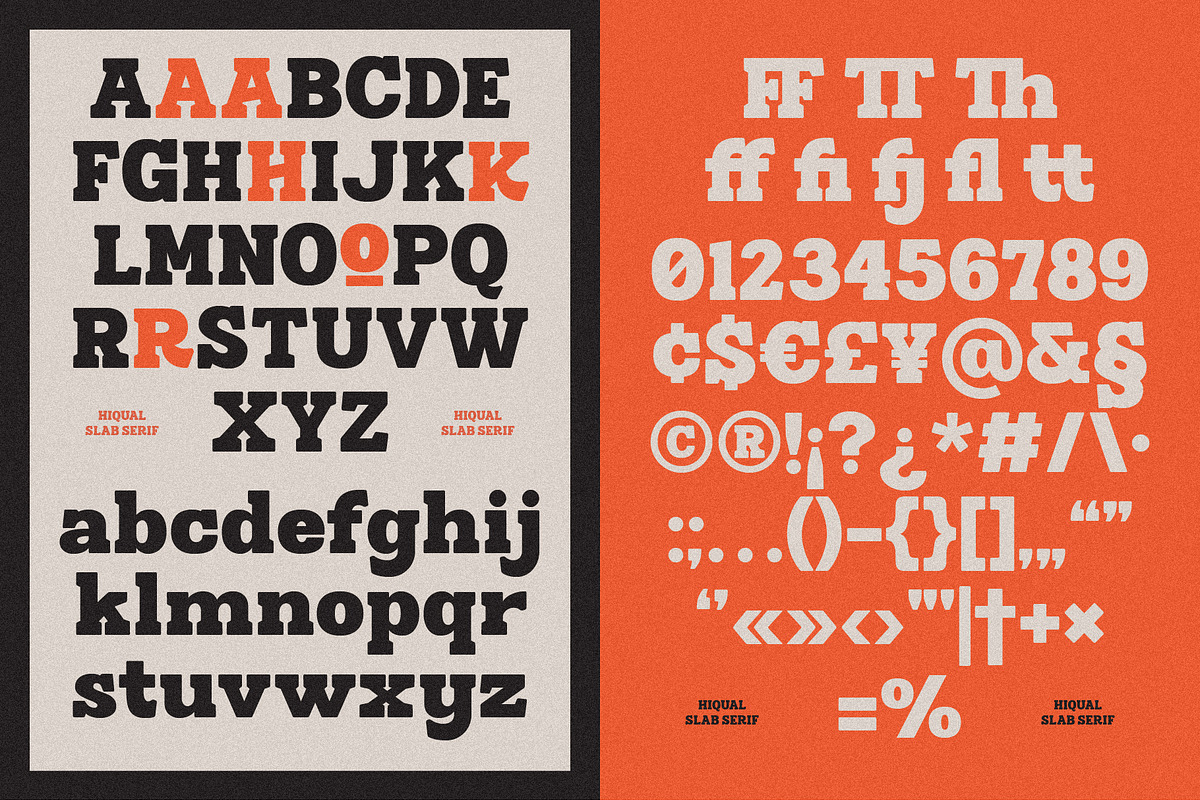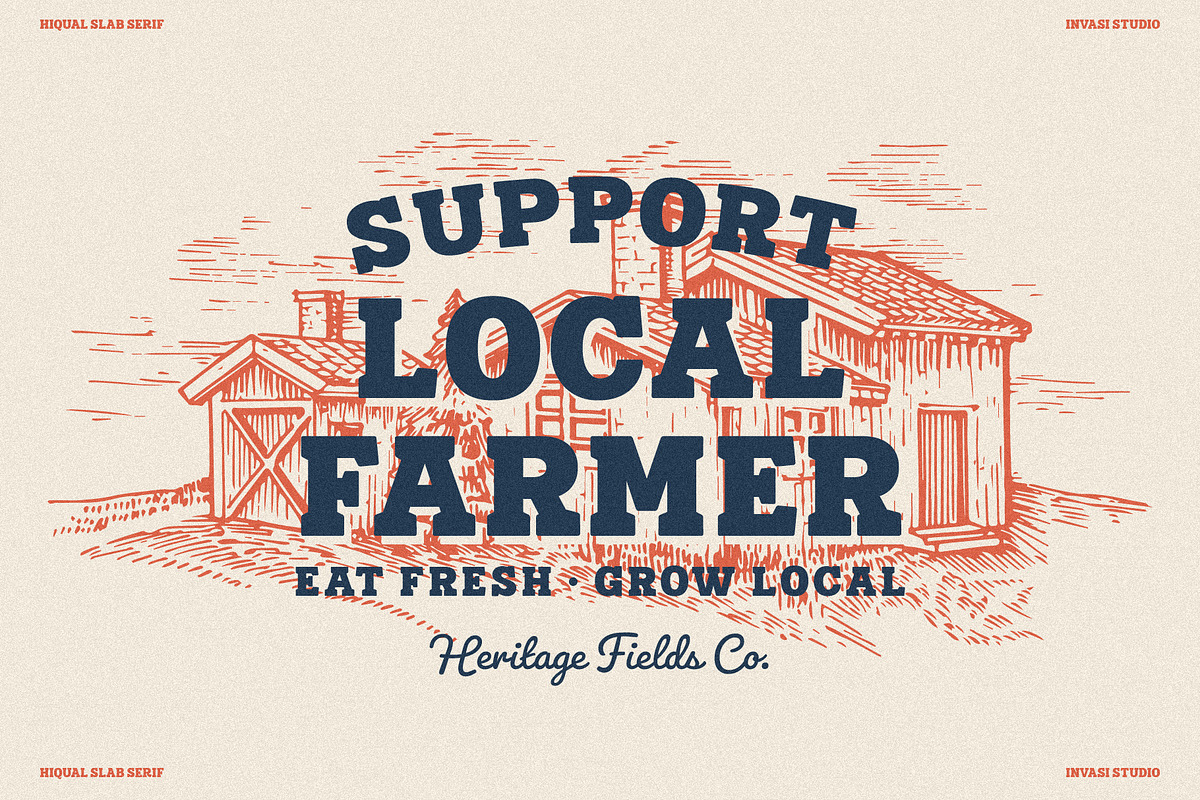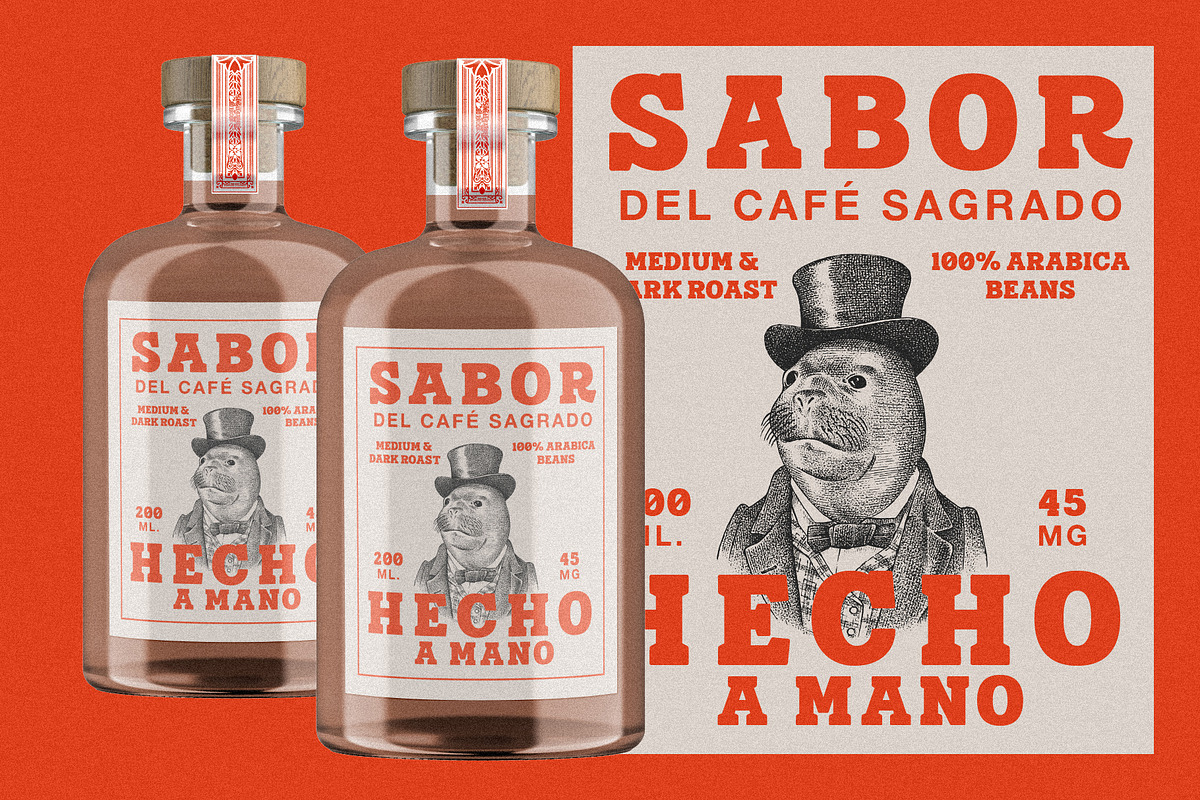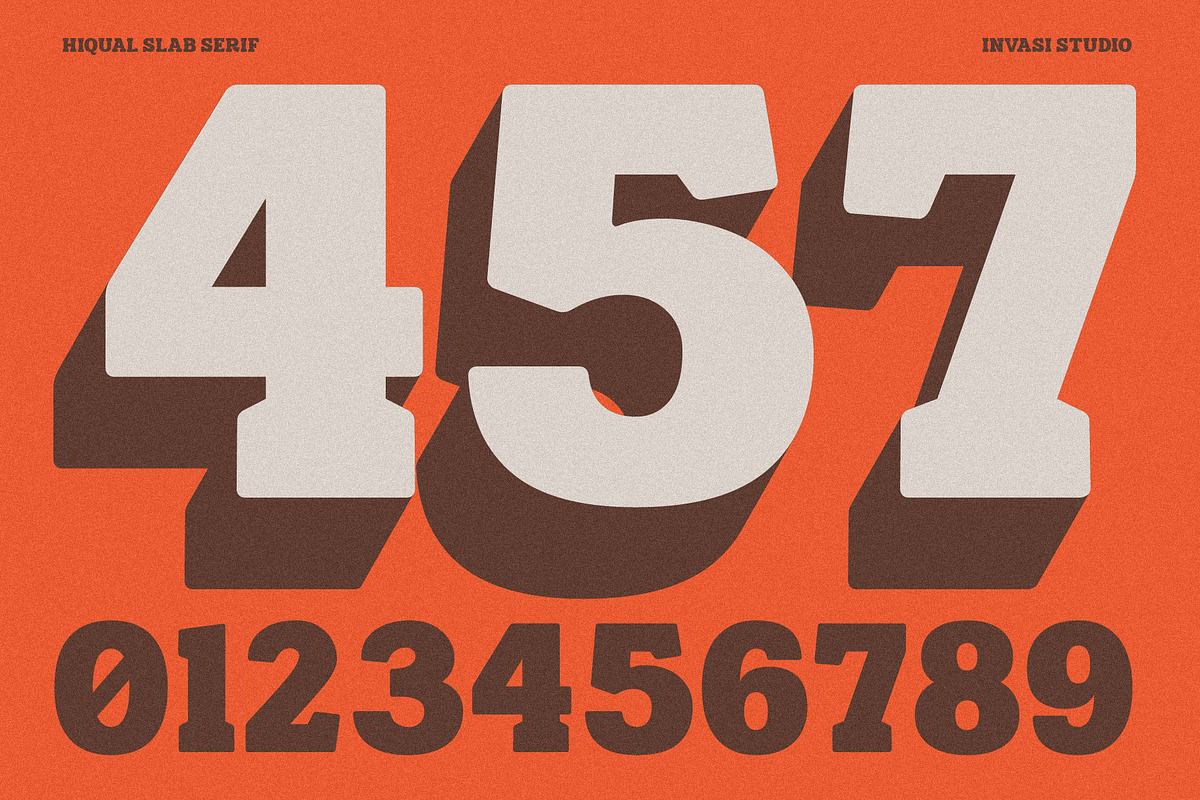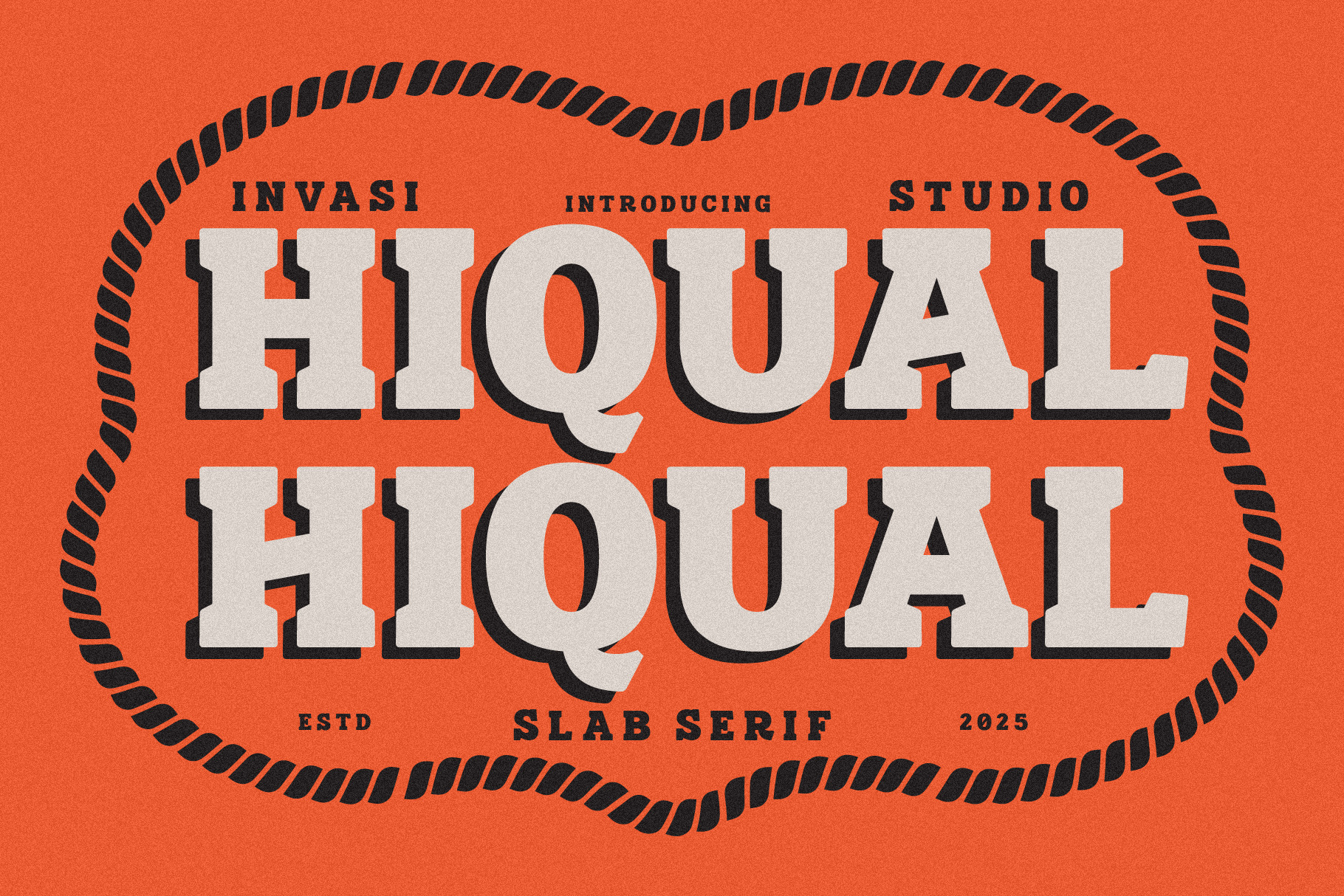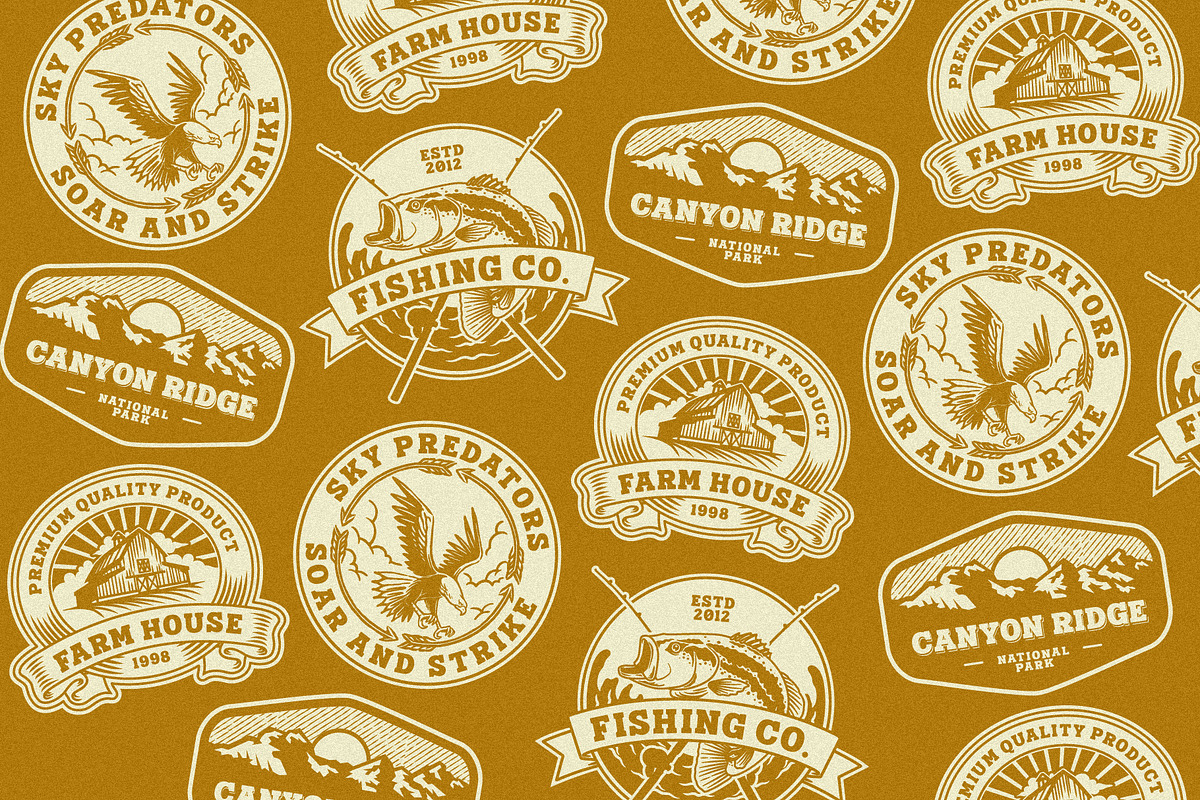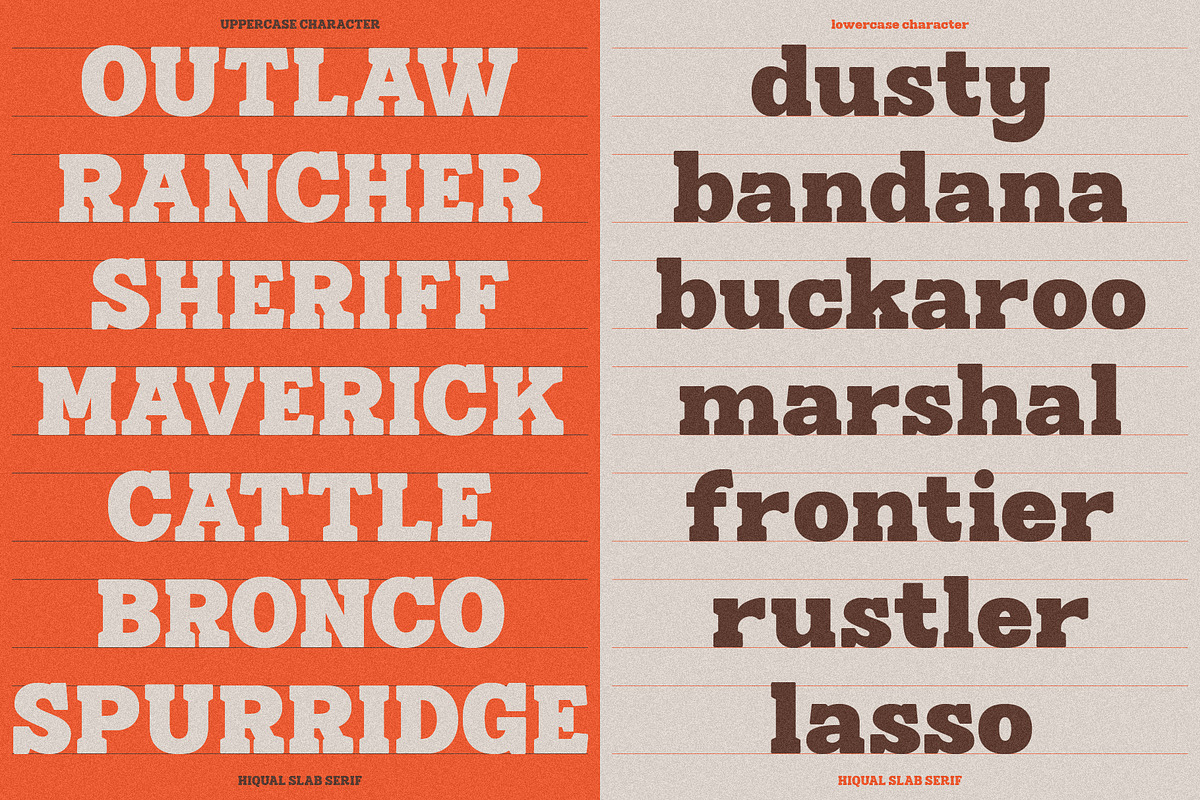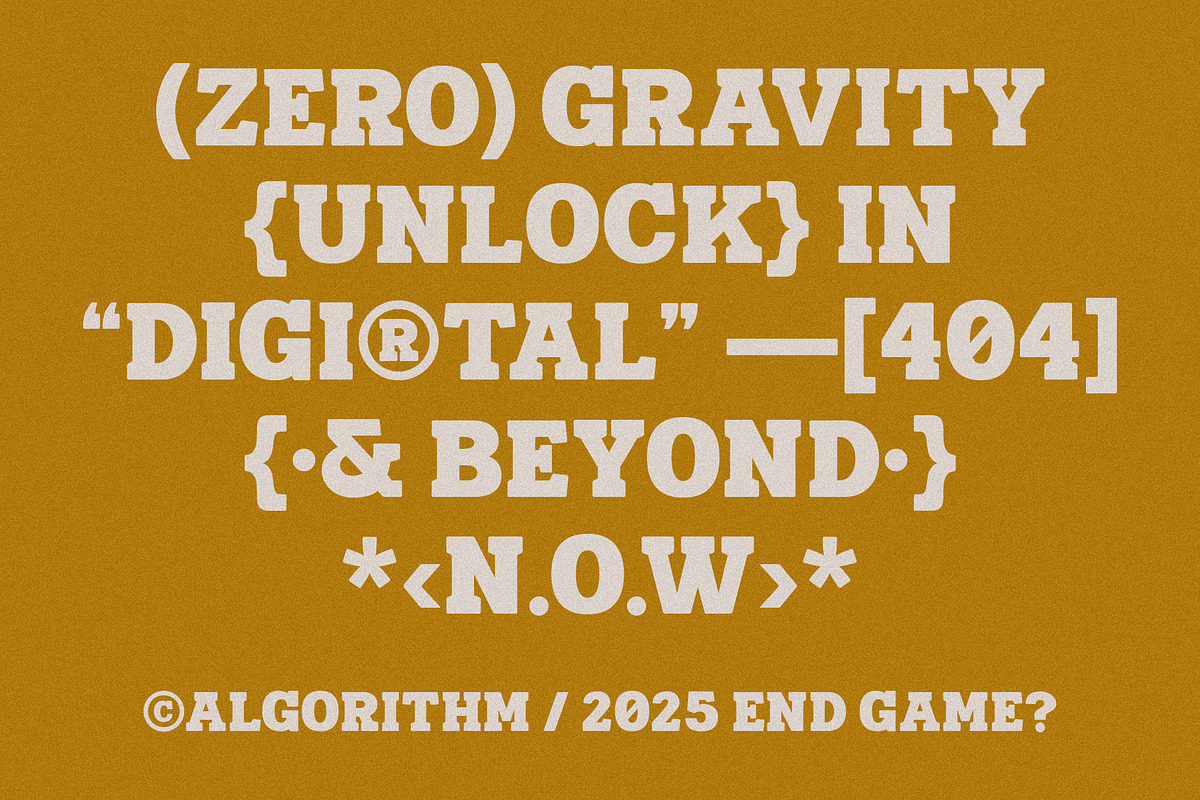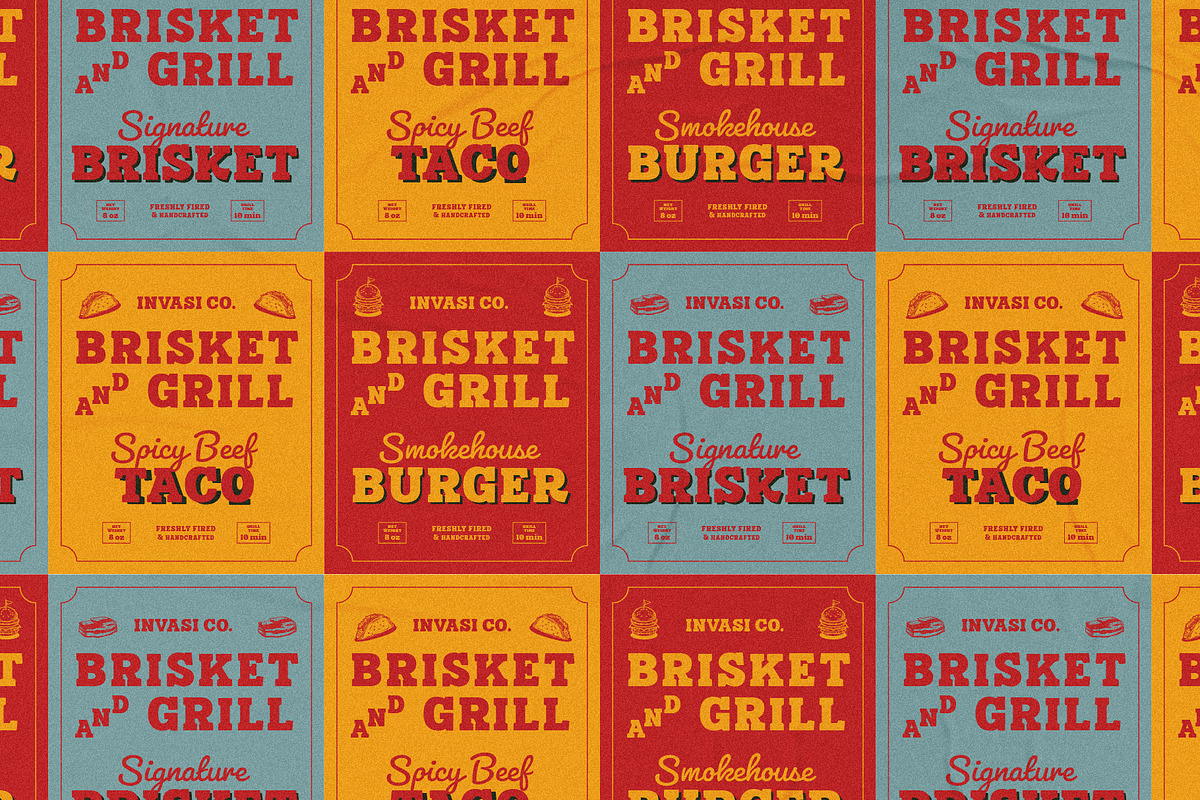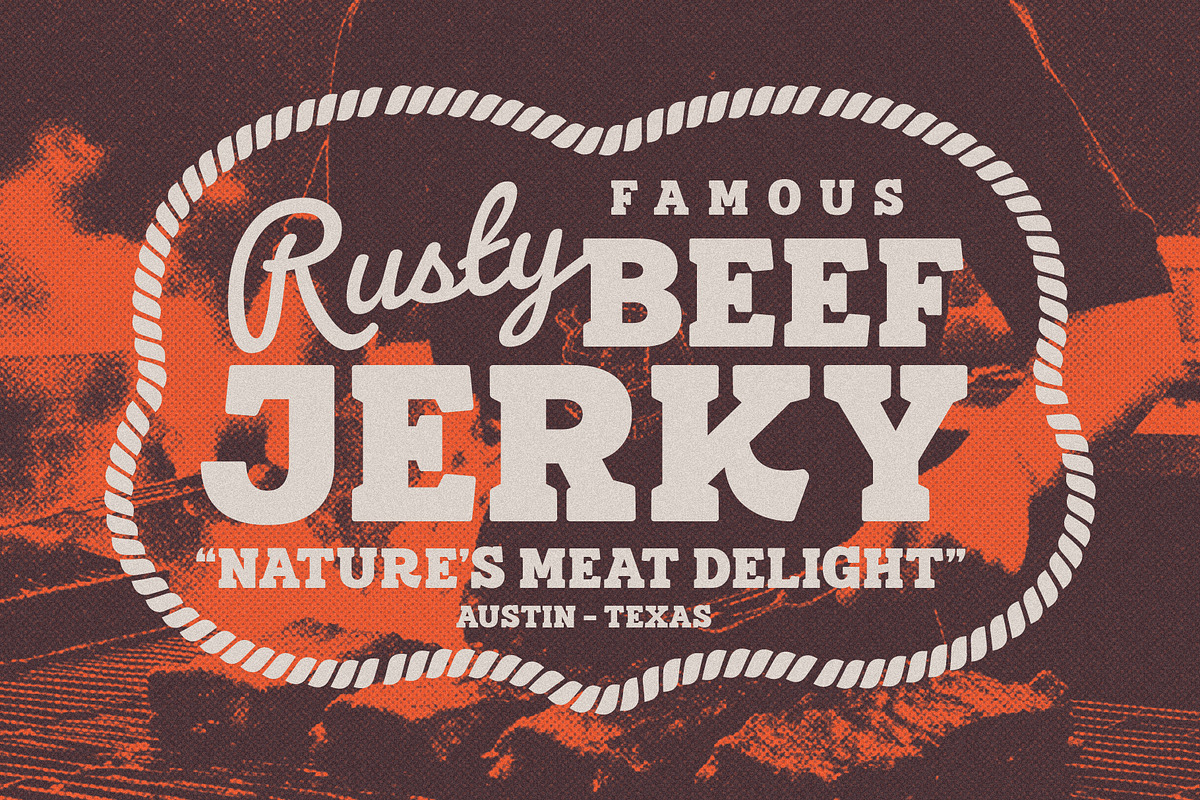
Hiqual – Western Vintage Font
Saddle up for a bold and rugged design with Hiqual, a slab serif font built for the wild frontier. Inspired by vintage Western typography, this typeface captures the strength and grit of classic saloon signs, rodeo posters, and rustic branding. Its thick, blocky serifs and solid structure make it perfect for logos, packaging, signage, and editorial layouts. Hiqual is crafted with sharp details and bold letterforms that demand attention while maintaining a timeless vintage appeal. With multilingual support and well-balanced letter spacing, this font delivers versatility for any project seeking an authentic Western aesthetic.
- Alternates & Ligature
- Multilanguage Supports 79+ Latin-based languages